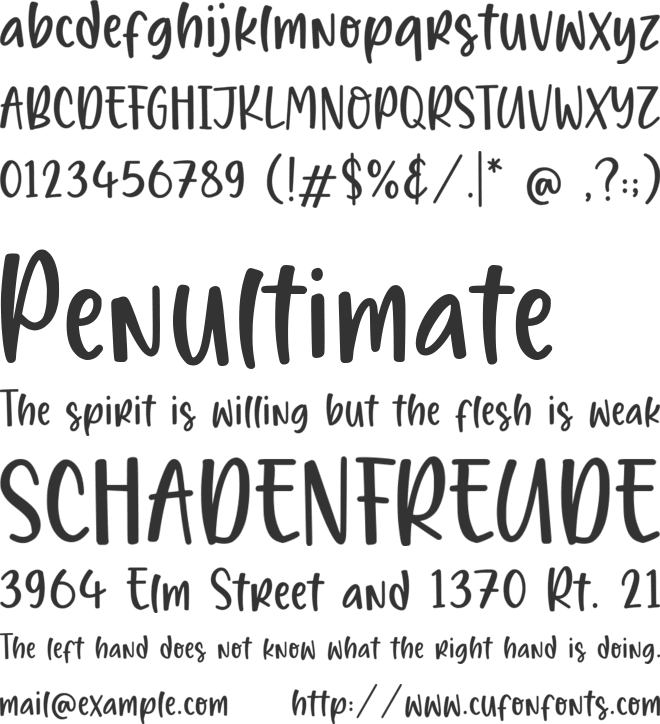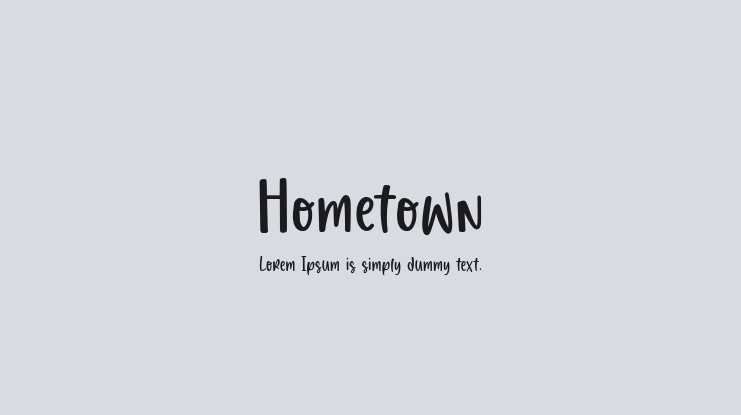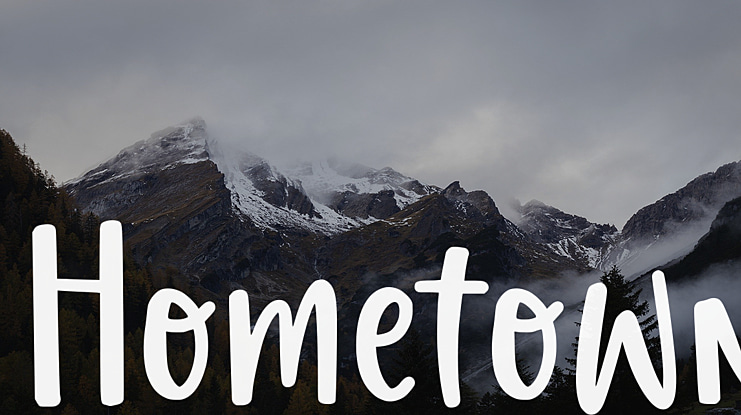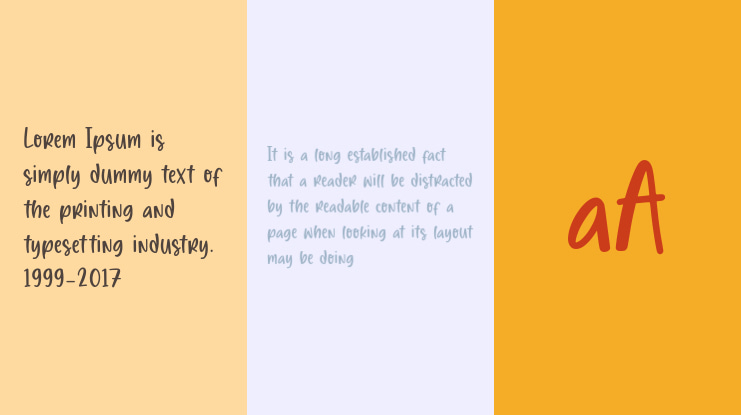
Hometown Font
Hometown is a Modern Handbrushed Font.
Hometown is perfect for product packaging, branding project, megazine, social media, wedding, or just used to express words above the background.